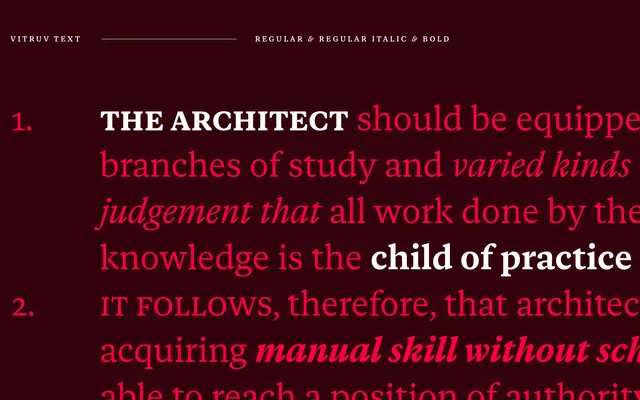
Vitruv Text specimen from Studio Rene Bieder
A classical text serif in six weights with matching italics, built around Roman naming conventions and a thorough set of OpenType features for editorial and publishing work.
Twelve styles run from Thin to Black with corresponding italics, each named after a figure or concept from Roman antiquity. OpenType features include small capitals, oldstyle and tabular figures, fractions, case-sensitive forms and several character alternates, making it well equipped for long-form setting. Part of a three-subfamily system alongside Vitruv Headline and Vitruv Poster, allowing consistent use across hierarchies.
The Roman naming conventions, classical proportions and range from Thin to Black with matching italics suggest a text-optimised transitional or classical serif intended for editorial and body copy use.